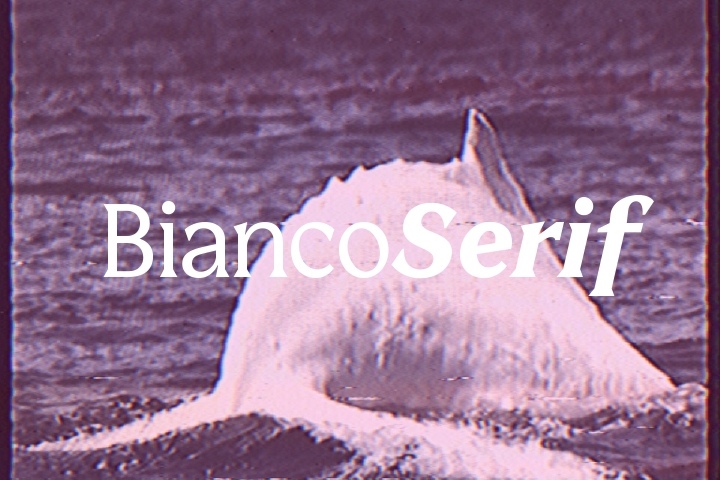
Bianco Serif Font
Bianco Serif Font is perfect for luxury editorial layouts, premium book publishing, sophisticated magazine designs, high-end fashion campaigns, elegant wine labels, refined cultural publications, upscale hospitality branding, classical music programs, luxury art gallery materials, and distinguished academic publications.
What makes Bianco Serif Font so exciting is its extraordinary ability to embody pure sophistication and timeless elegance through refined serif letterforms that seem to radiate cultured refinement and intellectual distinction with every character. This pristine typeface captures the essence of classical typography and scholarly excellence with characters that communicate both literary sophistication and contemporary luxury. The font's refined design elements perfectly balance traditional serif authority with modern minimalist elegance, creating an indispensable tool that communicates intellectual refinement, cultural sophistication, and pure quality, making it essential for publications and brands that understand the power of elegant typography in conveying scholarly authority and luxury positioning.
Bianco Serif Font comes in multiple font families including Regular, Bold, Light, Italic, Bold Italic, Book, Display, and Elegant variations. Each family member maintains the core sophisticated characteristics while offering different refinement levels and stylistic approaches to suit various luxury editorial and cultural design requirements.
The scholarly precision in Bianco Serif Font makes it particularly effective for premium publishing and luxury brands where conveying intellectual authority and cultural sophistication is crucial for connecting with discerning audiences who appreciate genuine literary excellence and refined aesthetic sensibilities. Its elegant letterforms work beautifully across both traditional print and contemporary digital applications, maintaining consistent cultural appeal and sophisticated presentation.
Luxury publishing professionals recognize how Bianco Serif Font transforms ordinary text into elegant expressions of literary excellence and cultural refinement. The typeface's sophisticated character set includes comprehensive international language support, scholarly symbols, and elegant typographic features that enhance the overall cultured atmosphere of any intellectually-focused project.
For creative professionals serving luxury publishers, cultural institutions, and sophisticated brands, Bianco Serif Font serves as the perfect foundation for establishing memorable visual identities that capture the essential qualities of literary elegance, cultural sophistication, and intellectual distinction that define successful publications and brands celebrating the timeless beauty of classical typography and scholarly excellence in competitive luxury markets where refinement matters most.